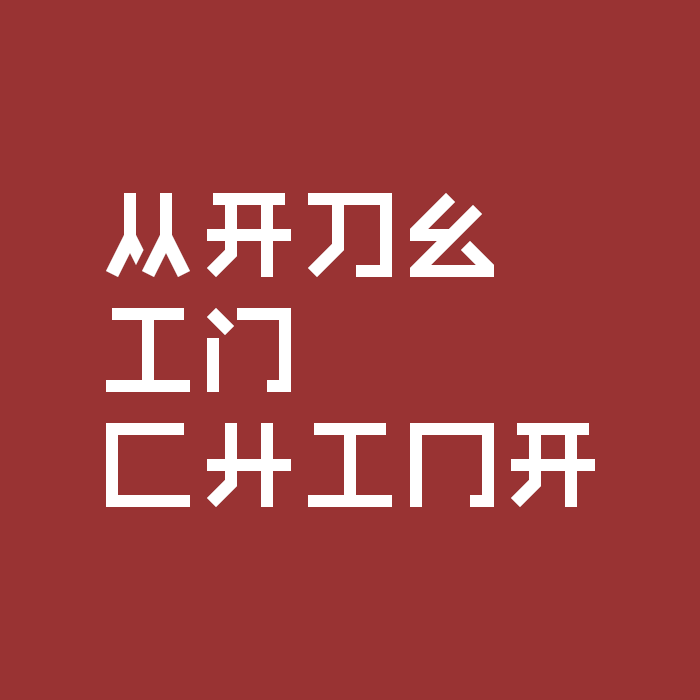
Kitay means China. Idea was to find chinese characters that visually look similar to latin letters. Some who tried it used letters from existing fonts, or chose different characters.
I hope the final result is 乚幺厶工乃乚幺 enough ). Letters V,v though, still need to find a similar character...
This is Great. I agree with you about the V. And a simple square woud do better with the O. But it's surprisingly readable and it feels authentic!
Dang, I can imagine this being a kickass hanzi font too :)
Nitpicking: Maybe the stem of 下 could be moved a bit more to the left.
Awesome representation of real Chinese characters!
For a Latin font this looks very Chinese. Congratulations on the TP.
@Icelar: I have added your suggested O as an alternative
@Noah: Thanks, it looks quite Chinese because most of the characters are real chinese words.
@Umbreon126: Thanks for the optical suggestion, I've changed it )
希望你能再制作更多汉字,因为这里就是缺乏中文字体!不过你的书风和造字工房好像!
(I want you to make more chinese characters, because there is no chinese fonts here! But, your font's style looks like MakeFont(A Chinese font foundry)!)
@lmz123: Sadly, FontStruct does not have support for chinese characters.
不过可以用制作成符号字体再给各个字修改编码的方式来完成!
(But you can make it by MAKE IT AS A DINGBAT FONT AND CHANGE THE CODES OF THE CHARACTERS!)
i am a native chinese speaker and I can't read this xD
Everytime I write in this style to people who speak chinese, they actually start reading it in chinese :) Some think it's japanese.
This is good, but if you want to write in Chinese characters without a font, search hwayih woen. 芔佀卅是良,但倘你屲厑笝夳涾汙邚溰夳內虿溰笝籴拶偘盃邚个峇涾荋们不岙夳个佱仴笝夳卅荋虿佱戓奤屲溰籴屲汙埜笝(华裔文)。It assigns archaic Chinese characters to English sounds along with some single characters based on meaning (与, 你, 倘, 但, 不, 之). https://omniglot.com/conscripts/hwayihwoen.htm. I did not have anything to do with creating this, & I'm certainly not trying to discourage anyone from using this font.
Very beautiful and interesting font. What about Й Л Ф Ц Ч Э Ю Я? Only they are not enough to complete the Russian Cyrillic set.